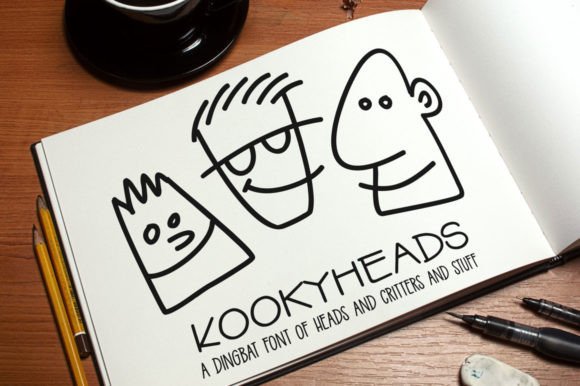
Step into a world of mirth and capriciousness with Kookyheads Font, the ultimate choice for injecting lightheartedness and playfulness into your creative endeavors. This delightful dingbats font family is the brainchild of the talented GeekMissy, known for her whimsical designs that ignite imagination.
Meet the Kookyheads, a captivating ensemble of doodle heads brimming with character and boundless expressions. Each head is a unique masterpiece, bursting with personality and charm. From goofy grins to wide-eyed wonder, smirking mischief to thoughtful contemplation, the Kookyheads embody the kaleidoscope of human emotions.
Unleash your creativity and immerse yourself in the world of Kookyheads. Let your imagination soar as you mix and match features from different heads, crafting quirky characters and captivating scenes. Whether you're designing birthday cards, crafting social media posts, or creating captivating logos, Kookyheads will add a splash of joy and individuality to your projects.
This versatile font is meticulously designed to be user-friendly and accessible. All the Kookyheads are conveniently mapped to regular keyboard keys, eliminating the need for additional programs or complex setups. Simply type and watch your creations come to life!
Your Kookyheads Font download is a treasure trove of whimsical elements, including:
- A diverse collection of 75 complete heads, doodles, and critters, each brimming with charm and personality.
- 11 blank head shapes, providing a canvas for your own artistic flair and imagination.
- 38 feature items, including eyes, glasses, mouths, and more, offering endless possibilities for customization.
Embark on an artistic journey with Kookyheads Font, where laughter and happiness dance hand in hand. Let your creativity flourish as you craft whimsical designs that capture the very essence of joy. Download Kookyheads Font today and unlock a world of playful possibilities!